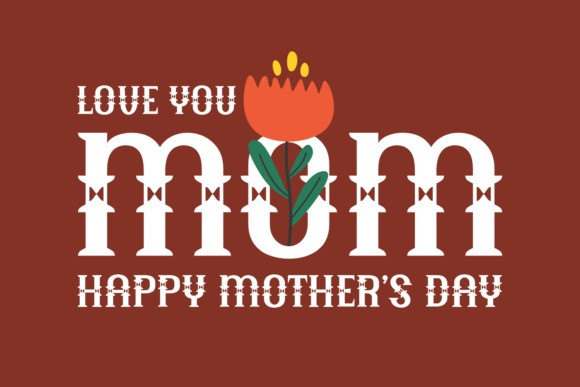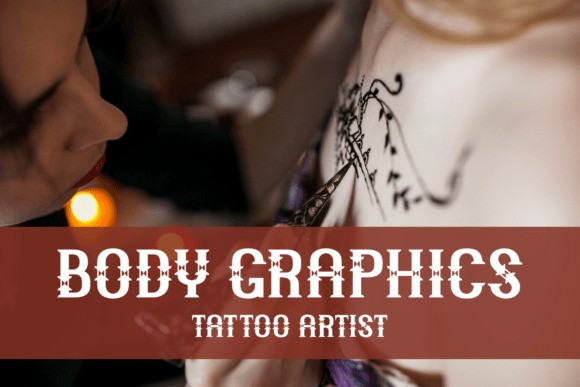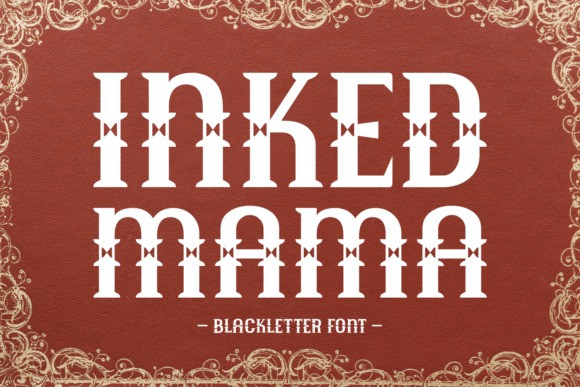
Inked Mama Font
Inked Mama Font. This unique font skillfully blends the dark, dramatic allure of Blackletter and Gothic styles with the warmth and familiarity of Mama Font. It’s a creative, multilayered font that seamlessly marries Vintage and Retro with Modern and Unique elements. Perfect not only for tattoo design but also for crafting striking logos and t-shirts. Its a vintage flavor that can instantly catapult your creative projects into the realms of the extraordinary. Inked Mama – the ultimate pick for those seeking a font that’s simultaneously dramatic and endearing.